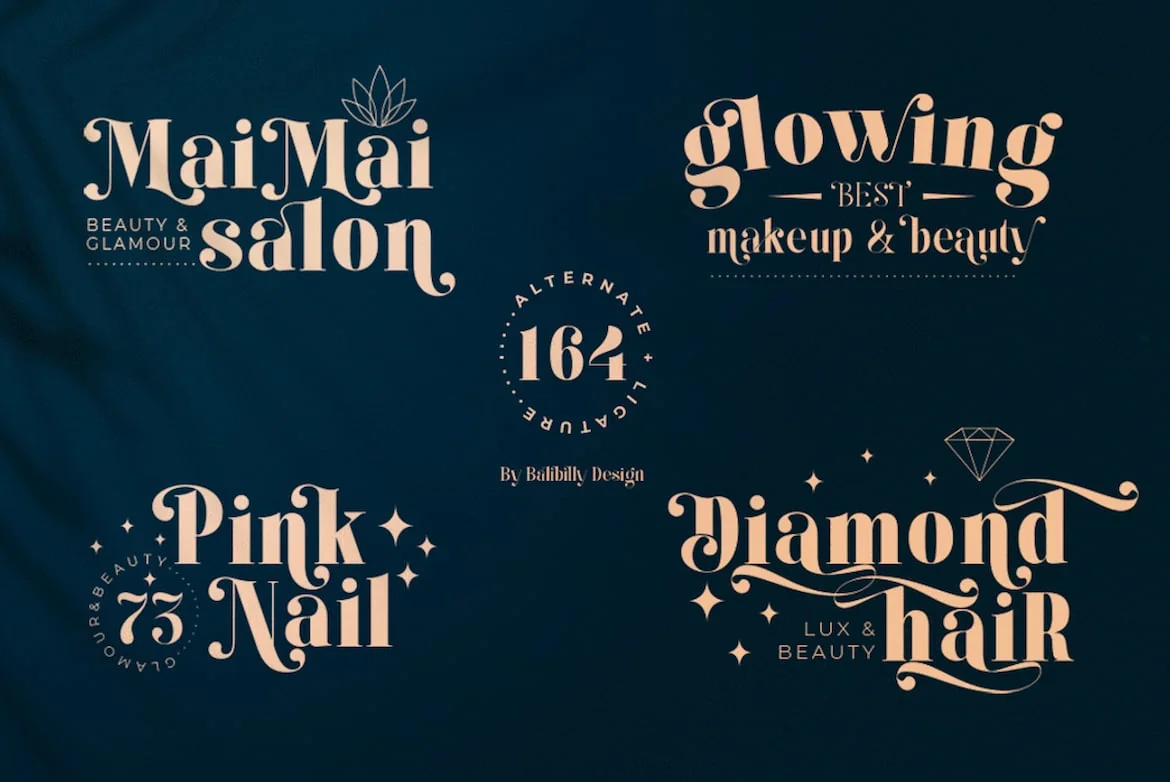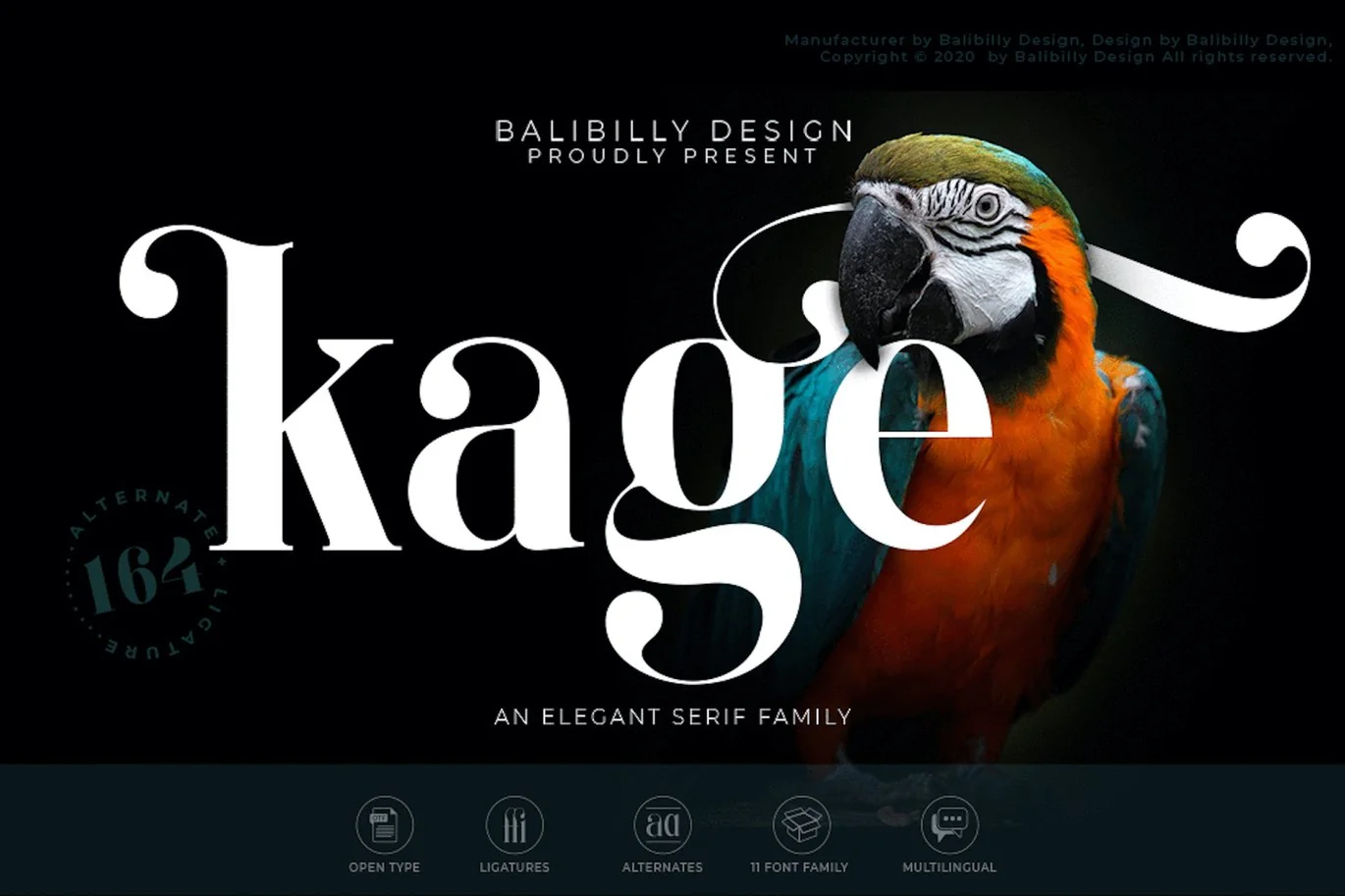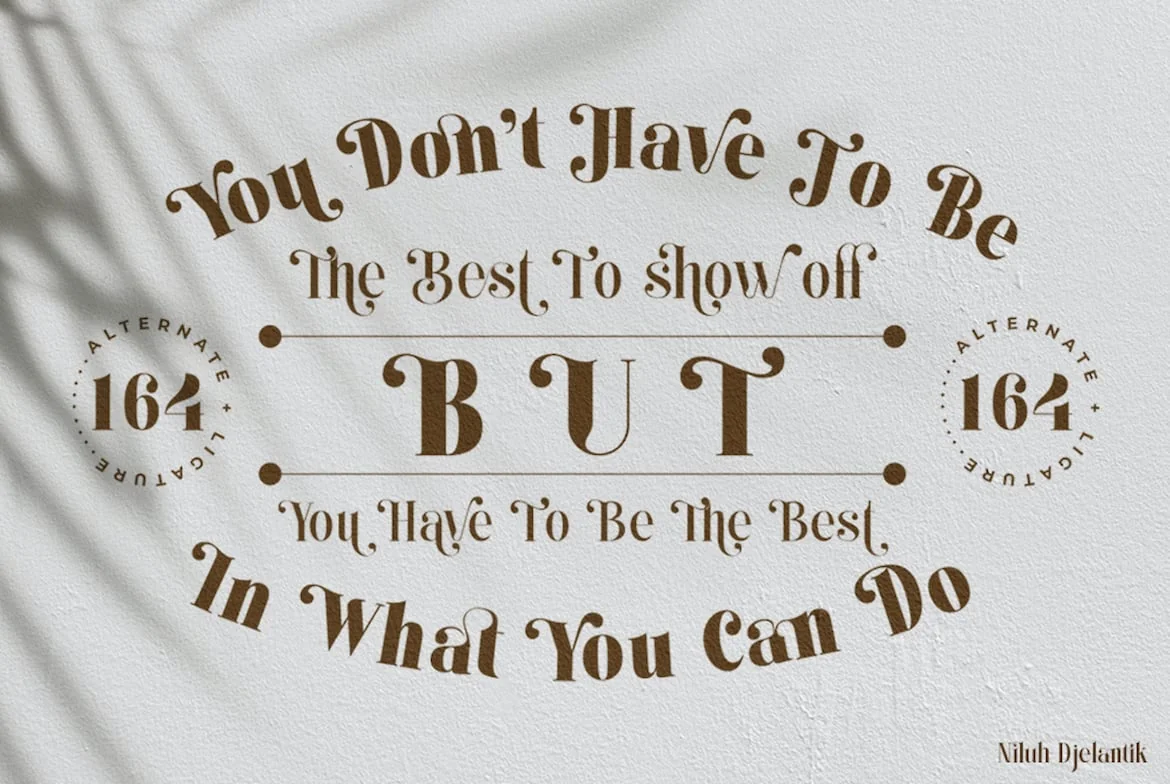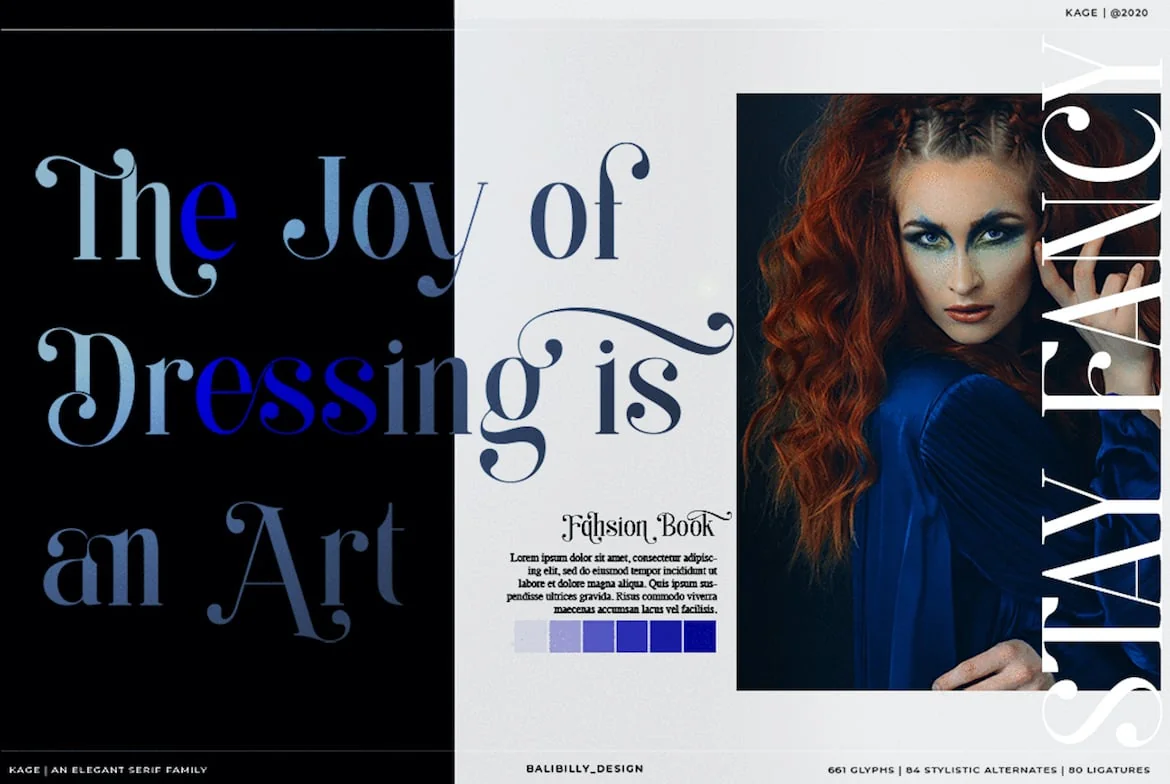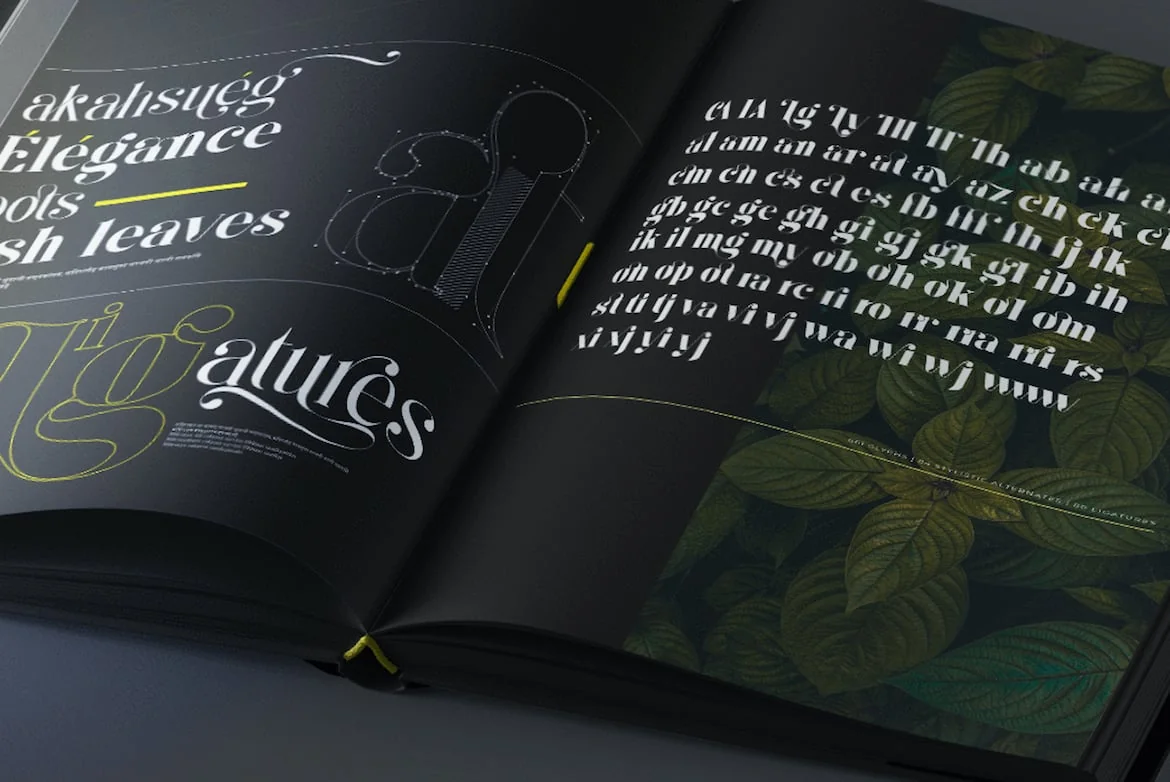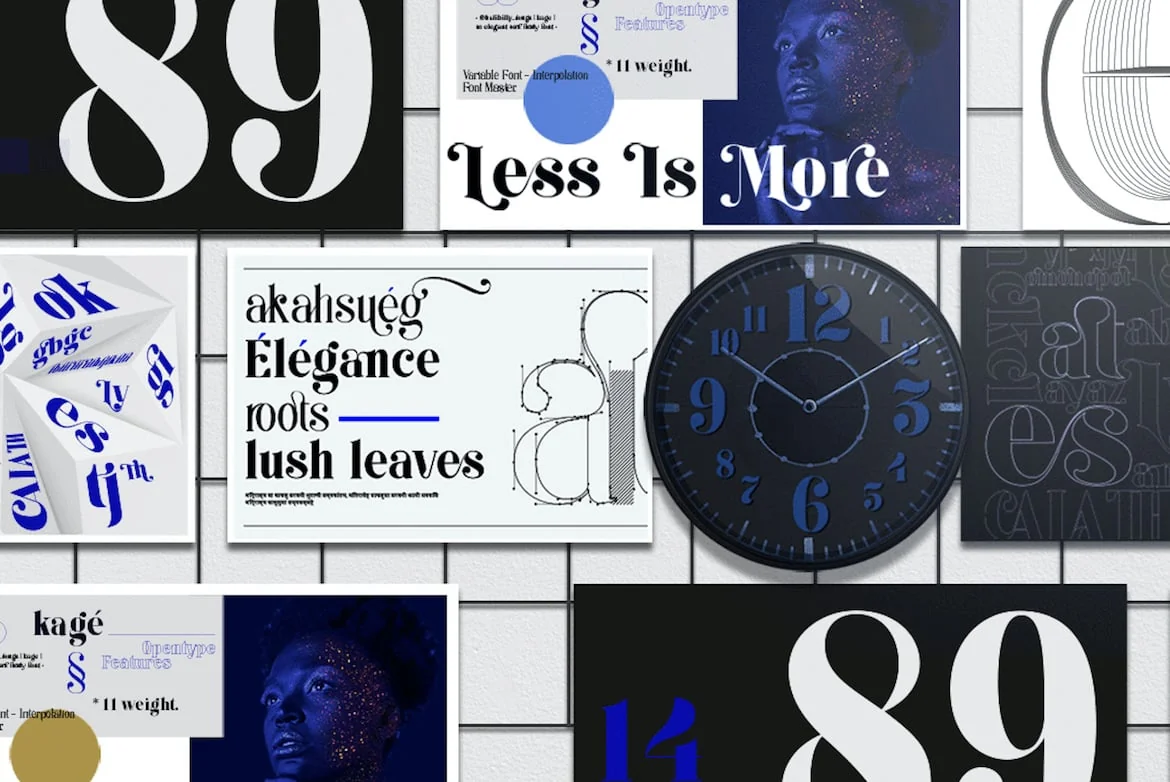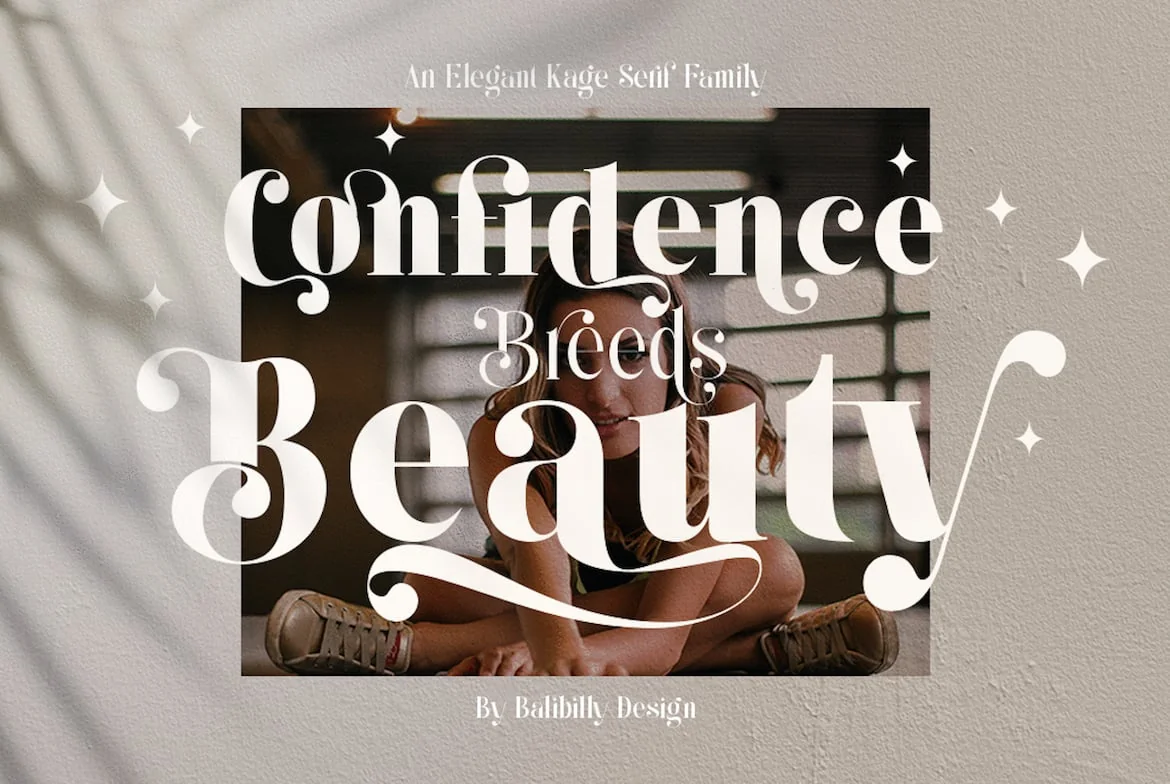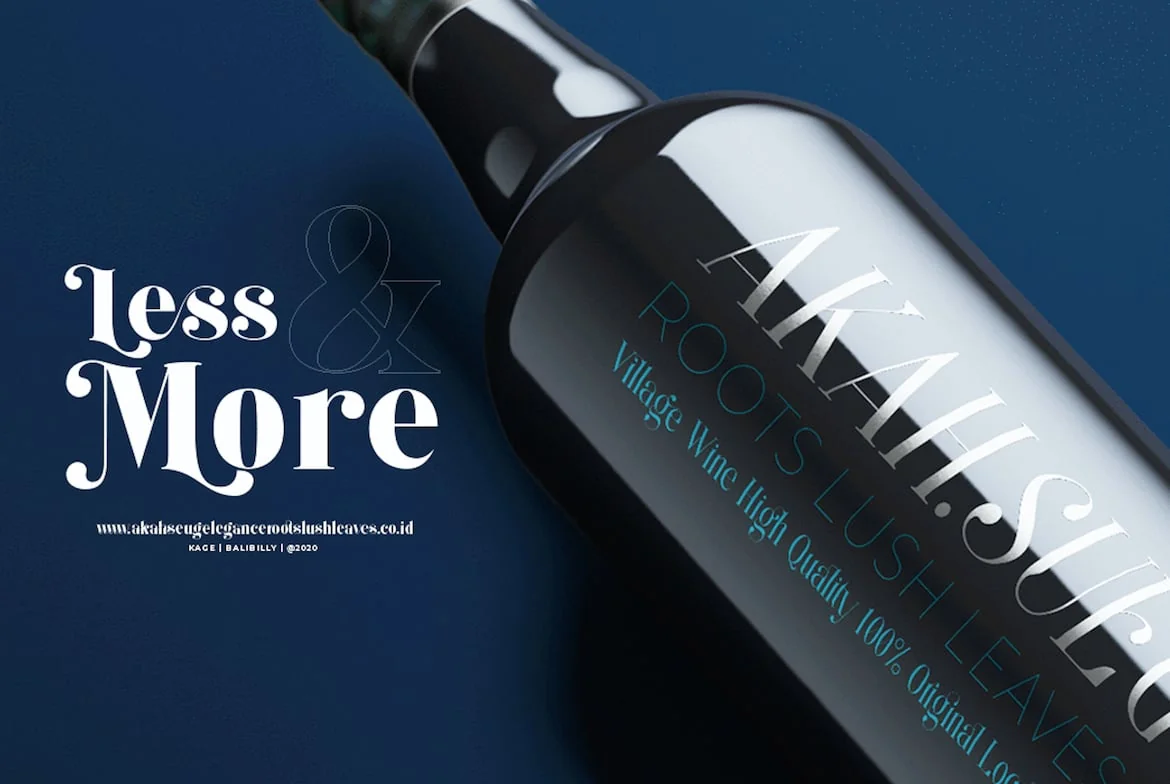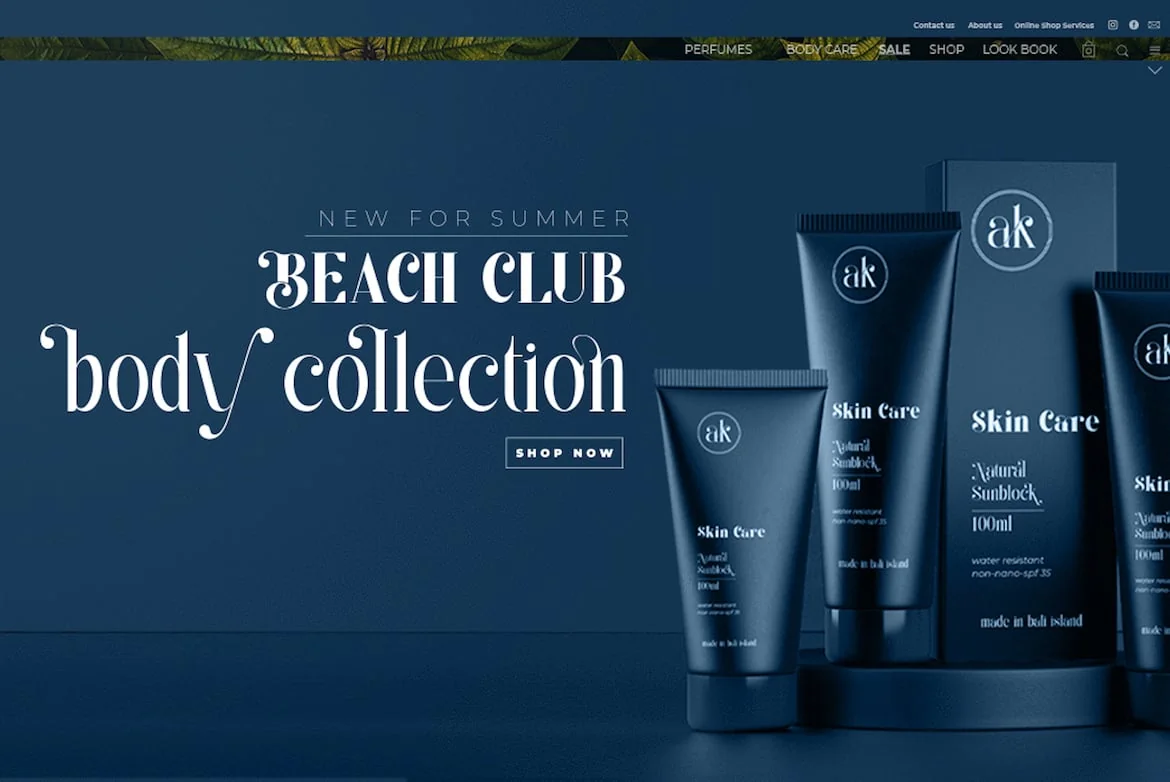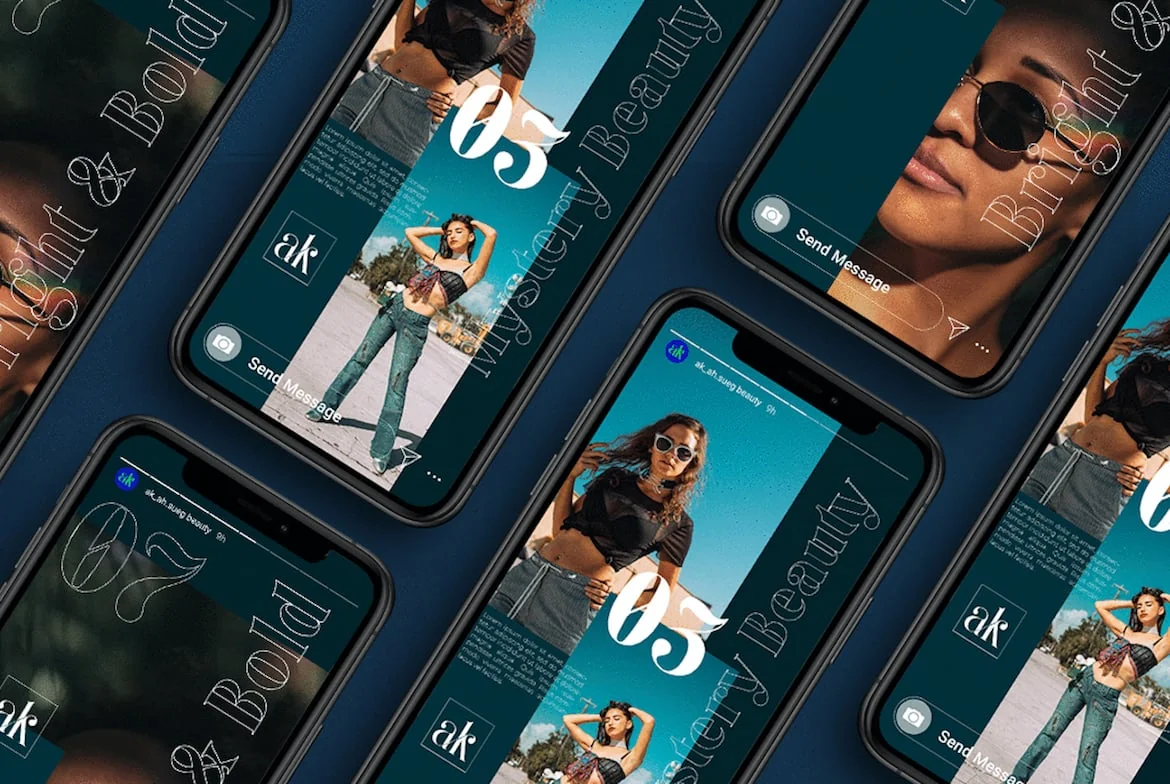
Kage – An Elegant Serif Typeface
Introducing the elegant and unique typeface KAGE.
This style has become a trend this year, inspired by some of the edgiest looks in modern luxury fashion. It is designed with a careful approach, making it as simple as possible to use by accessing stylistic alternate letters and ligatures in OpenType features. Just switch between ss01 to ss04 and back to elevate your next design.
Kage offers 11 font families ranging from Thin to Black. It can be applied to various design concepts or added to your unique serif font collection. Complete with Unicode and PUA encoding, it can be used in both design and non-design applications. Kage also supports 131 languages.
Kage is a strikingly versatile font, making it a bold choice for branding projects, logos, postcards, magazines, social media text overlays, invitations, posters, packaging, website headers, and more. The numerals in Kage are particularly elegant for classic-style clock and watch designs, making it an excellent pair to Helvetica, Montserrat, Gotham, and many more. It’s guaranteed to impress your customers! Start creating standout designs effortlessly with this font.
CHARACTER DETAILS
- Basic Latin alphabet A-Z and a-z
- Stylistic alternate
- Ordinals
FEATURE
- Kage-Thin
- Kage-ExtraLight
- Kage-UltraLight
- Kage-Light
- Kage-Normal
- Kage-Regular
- Kage-Medium
- Kage-DemiBold
- Kage-SemiBold
- Kage-Bold
- Kage-Black